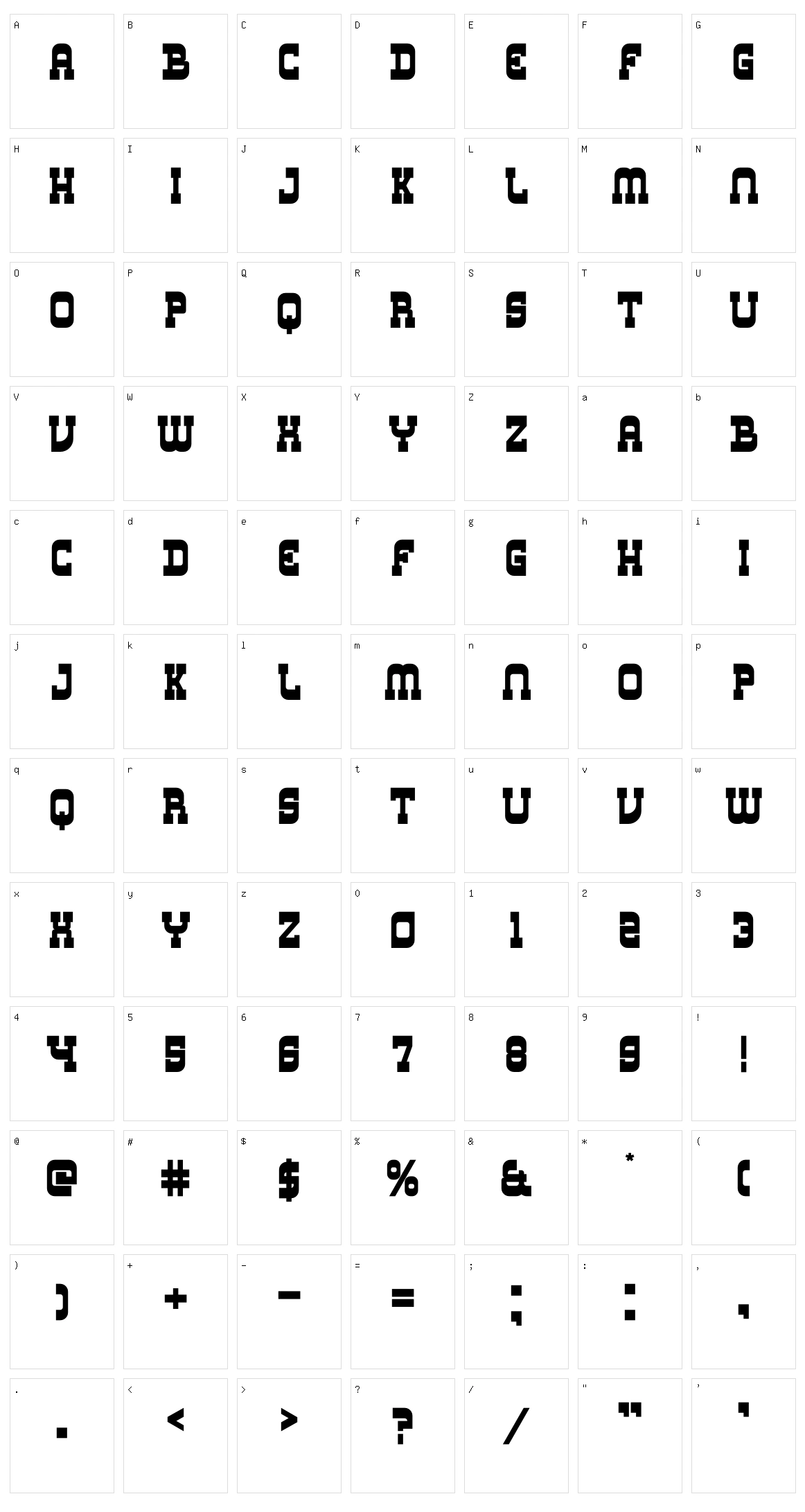
The free font Los Banditos Serif is carefully designed by Toko Laris Djaja, showcasing a thoughtful balance of creativity and usability and falls under the Western font style. When you download the ZIP file, it contains only 9.74 KB of font files, making it lightweight and quick to download. Please review the license details below to understand permitted usage and distribution rights. If license information is not available, we recommend using this font for personal projects only or contacting the author directly for commercial usage permissions.